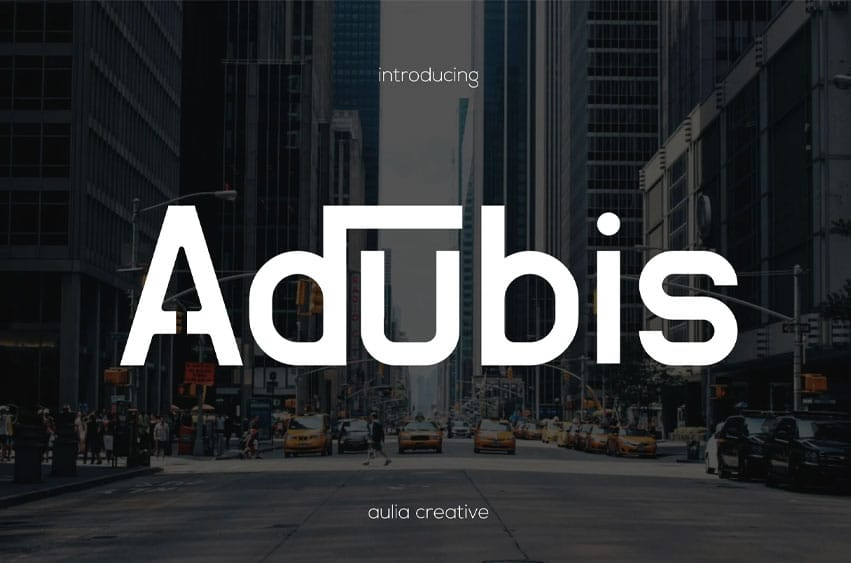
Adubis Font Sans Logo Font is and awesome and authentic display font.
It fits in headlines, logos, posters, flyers, invitations, name cards, branding materials, print media, editorial layouts, and many more.